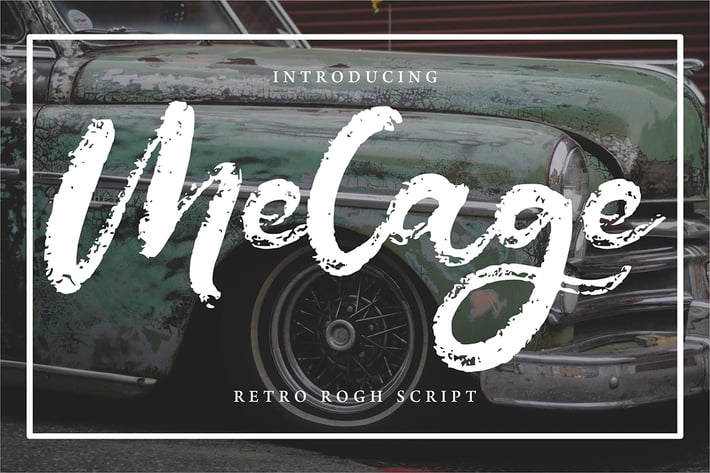
Melage | Retro Rogh Script Font
Melage | Retro Rogh Script Font with a calligraphy style, So beautiful on invitation like greeting cards, branding materials, business cards, quotes, posters, and more!